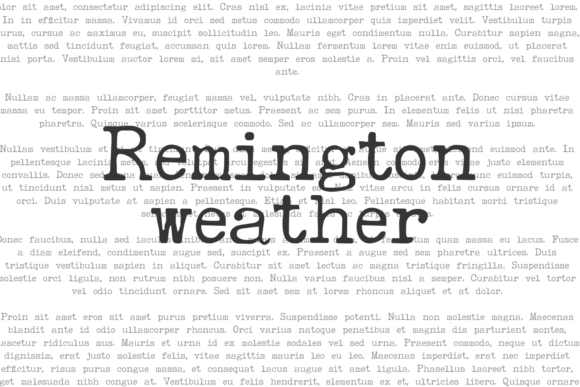
Introduction to Remington Weather Font
There’s something magical about the first spark of creativity. You’re sitting at your desk, surrounded by half-finished projects, scraps of paper, and a million ideas swirling in your head. And then, it hits you – the perfect font to bring your vision to life. For designers, finding that elusive font can make all the difference between a mediocre project and a masterpiece. Enter the Remington Weather Font, a distressed typewriter font that’s about to become your new go-to design resource.
Imagine adding a touch of nostalgia and grit to your next creative project. With its authentic, ink-stained look, the Remington Weather Font is the perfect choice for designers seeking to add some edge to their designs. Whether you’re working on a free download or a high-quality design, this versatile font is sure to impress. And with its transparent background option, you can easily layer it over any image or texture, giving you endless possibilities for creative expression.
Key Features of Remington Weather Font
- High-quality, detailed design ideal for creative projects, including illustrations and graphics.
- Comes with a transparent background, allowing for easy customization and integration into various designs.
- Features a unique, distressed aesthetic that adds a vintage touch to any design, making it perfect for rustic or vintage-themed projects.
Honest Review: Remington Weather Font
As a designer, I’m always on the lookout for high-quality design resources to elevate my creative projects. Recently, I had the chance to try out the Remington Weather Font, and I’m excited to share my honest review with you.
What works well: ✨ The Remington Weather Font is incredibly versatile, making it perfect for a wide range of design projects. The font’s unique blend of modern and vintage elements gives it a distinctive look that’s sure to grab attention. I particularly love the fact that it’s available for free download, making it an excellent resource for designers on a budget.
- High-quality design: The font is crisp, clear, and well-designed, with a transparent background that makes it easy to layer with other design elements.
- Design versatility: The font is suitable for a wide range of design projects, from brochures and business cards to social media graphics and web design.
However, there are a few limitations to consider: ⚠️ The font is only available in a single weight, which may limit its use in certain design contexts. Additionally, the font’s unique design elements can sometimes make it difficult to read, especially in smaller font sizes.
Overall, I’m impressed with the Remington Weather Font. While it may have some limitations, its high-quality design and versatility make it an excellent addition to any designer’s toolkit. If you’re looking for a unique and eye-catching font to elevate your creative projects, I highly recommend giving the Remington Weather Font a try.
The Remington Weather Font is perfect for a variety of design projects, including weather-themed graphics, travel brochures, and outdoor adventure marketing materials. Its high-quality design and transparent background make it an ideal choice for creative projects.